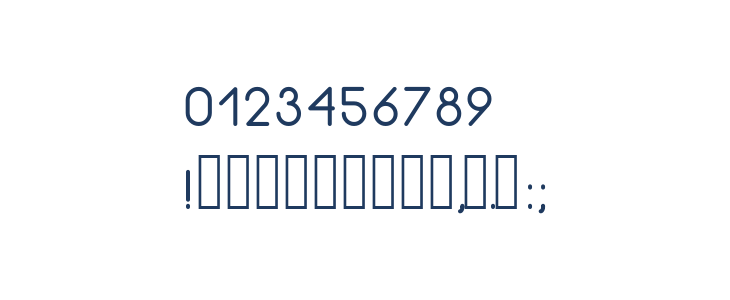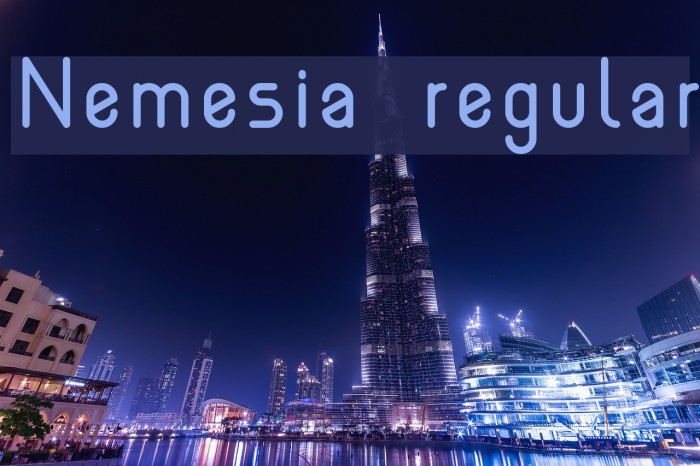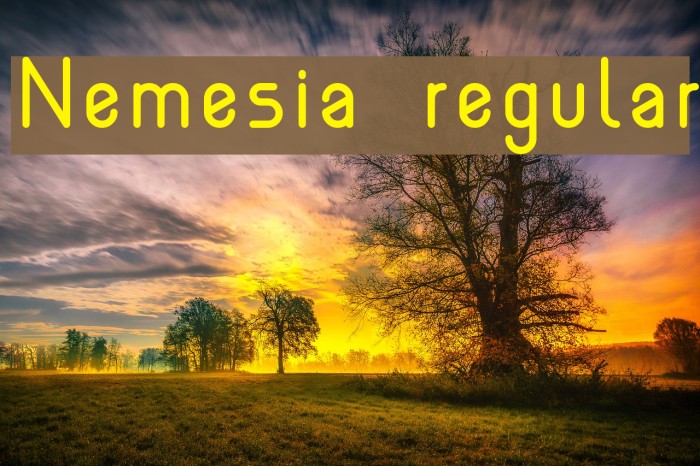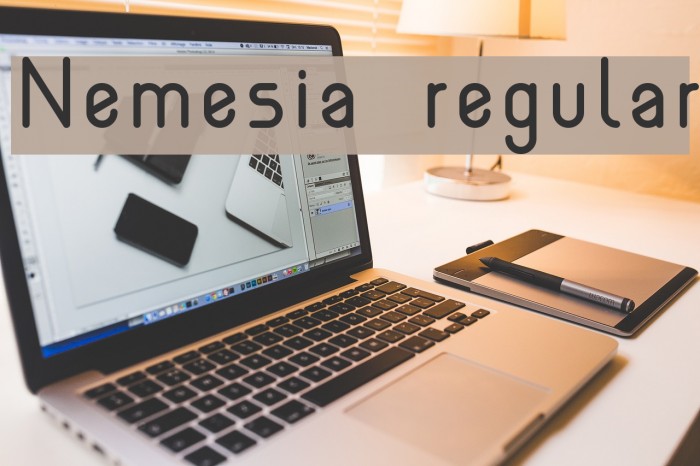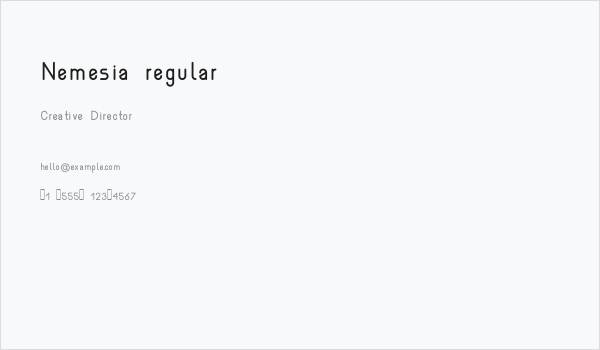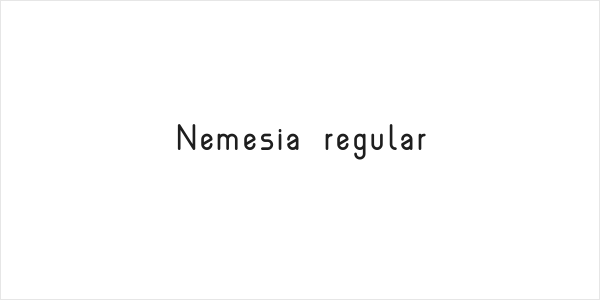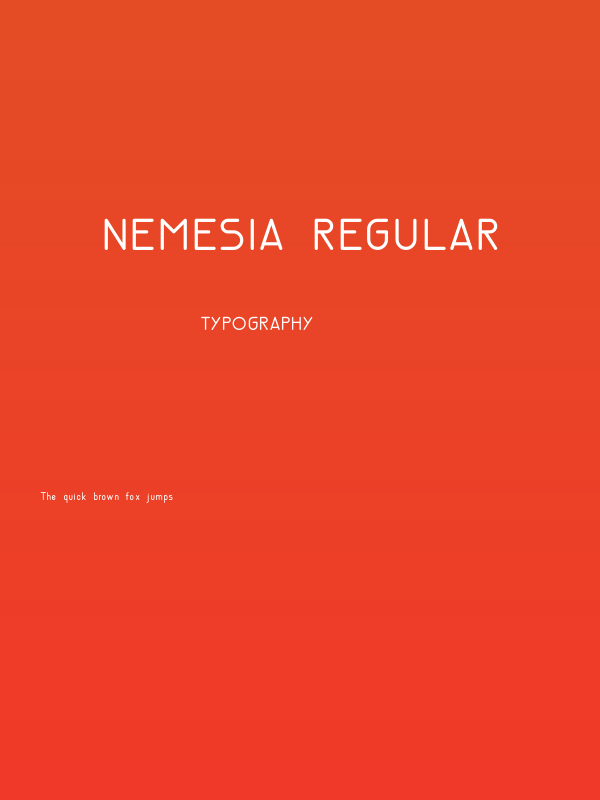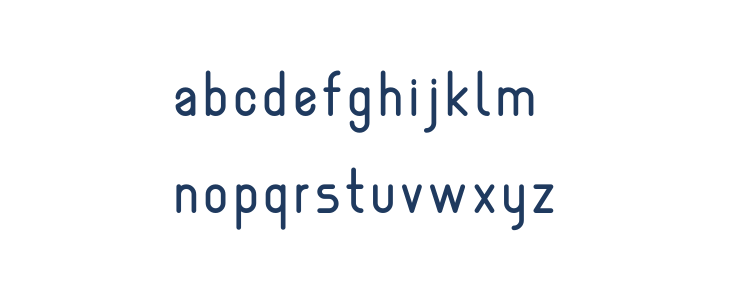
Nemesia regular Font
Nemesia regular Description
This font features a clean and modern design with rounded edges that give it a friendly and approachable appearance. The characters are evenly spaced, contributing to its readability. The uppercase letters are slightly taller than the lowercase, maintaining a consistent line weight throughout. The numerals are clear and distinct, matching the style of the alphabet. Special characters are included, maintaining the same rounded and modern aesthetic. This font is versatile, suitable for both digital and print media, and can be used in various design projects.
| Proposed Projects | Ideal for branding, web design, user interfaces, and print materials where a modern and friendly look is desired. |